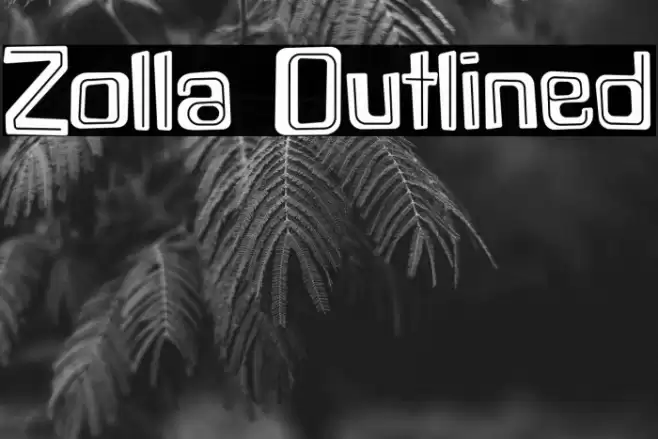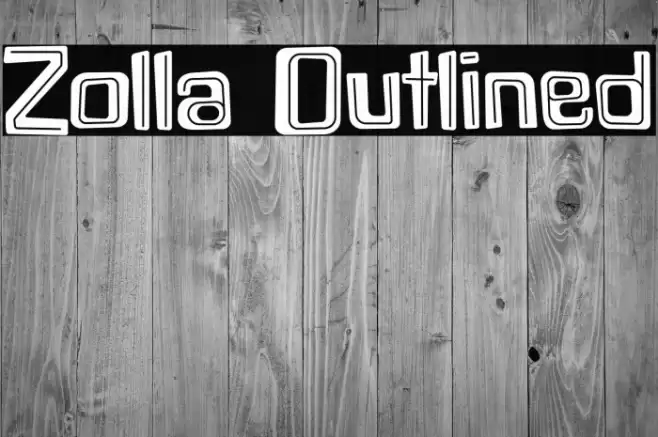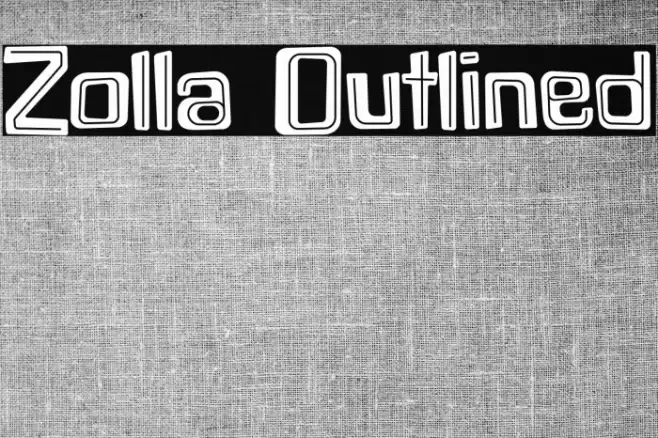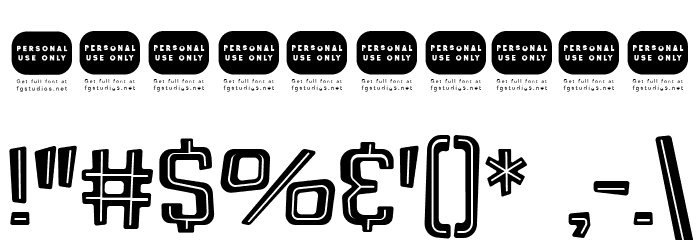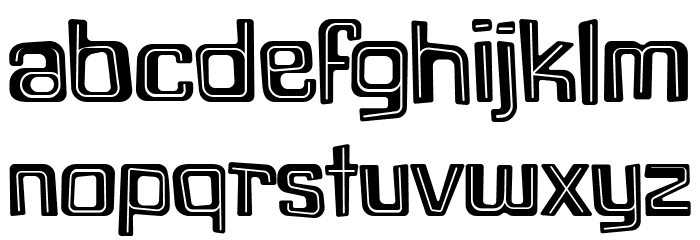
Zolla Outlined Font
Zolla Outlined Description
This font features a bold, outlined style that gives it a striking and modern appearance. The uppercase and lowercase letters maintain a consistent width, creating a uniform look across the alphabet. The characters are slightly condensed, which enhances their boldness and makes them stand out. The font's geometric shapes and clean lines contribute to its contemporary feel, while the outlined design adds a layer of depth and dimension. This font is particularly effective for creating eye-catching headlines or logos, where its unique style can be fully appreciated. The special characters, including punctuation and symbols, are designed with the same outlined effect, ensuring consistency throughout the font.
A bold, outlined font with a modern and geometric style from Uncategorized fonts.
- Font: Zolla Outlined
- Proposed Projects: Ideal for branding, poster design, and any project requiring a modern, standout typeface.
- Width: Condensed